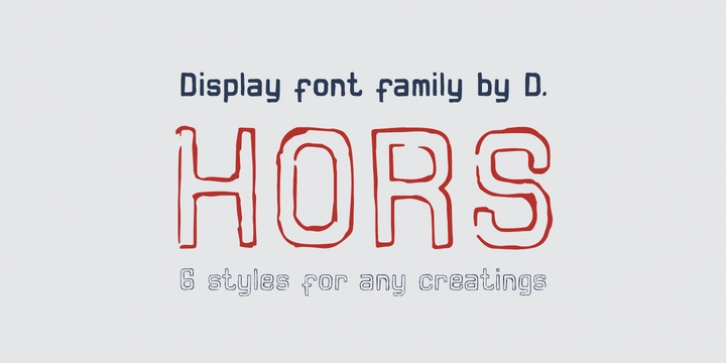
Hors downloadDesigner: Dima Pole
Publisher: Dima Pole
Hors is name of Arian God, also it is an ancient name of Mercury.
Hors is display font font family with 6 styles, including filled, outline, shadowed and others. Hors is a handmade type. Here are more than 500 glyphs and opentype features.